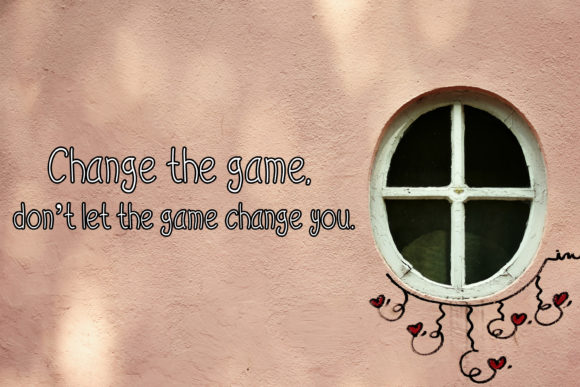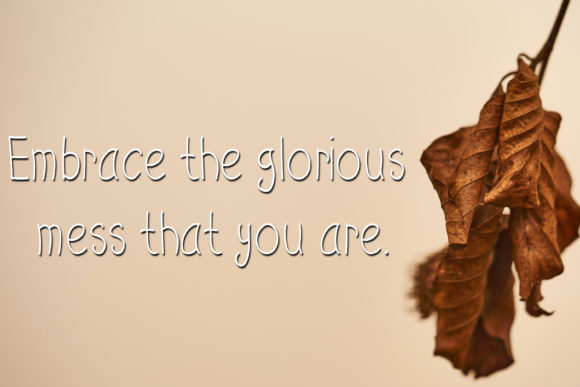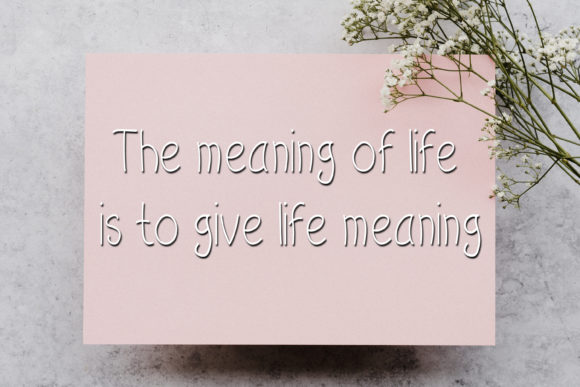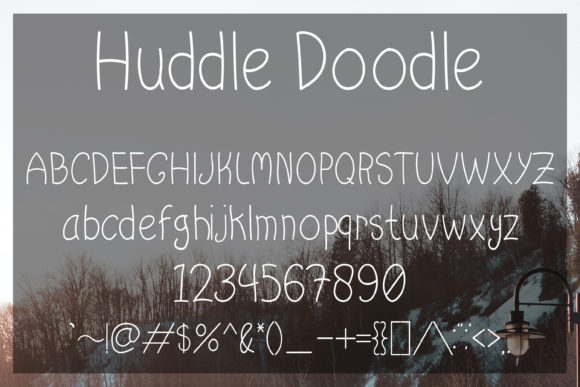
Huddle Doodle Font
About Huddle Doodle Font
Huddle Doodle is a fun and elegant handwritten font. Featuring slim letters and a cursive style, this typeface is the perfect choice for any project that requires an authentic, natural look!